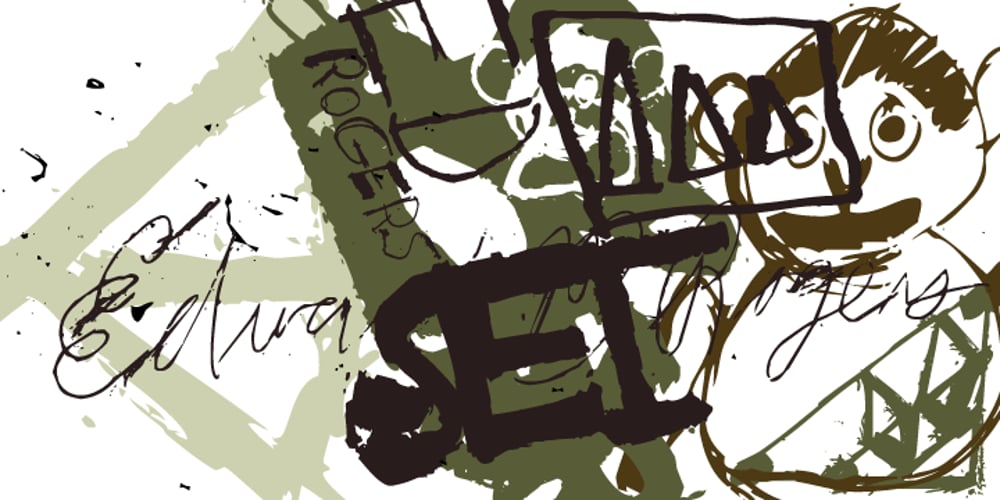
P22 Ed Rogers Font Family was designed by Richard Kegler, Ed Rogers, Colin Kahn and published by P22 Type Foundry. P22 Ed Rogers contains 2 styles and family package options. Ed Rogers (1925-2002) was an unlikely and unintentional art figure. Ed Rogers’ vibrant lettering is compelling in its characteristic inconsistency. The Ed Rogers font set features digitized versions of his lettering for truly unique design possibilities.